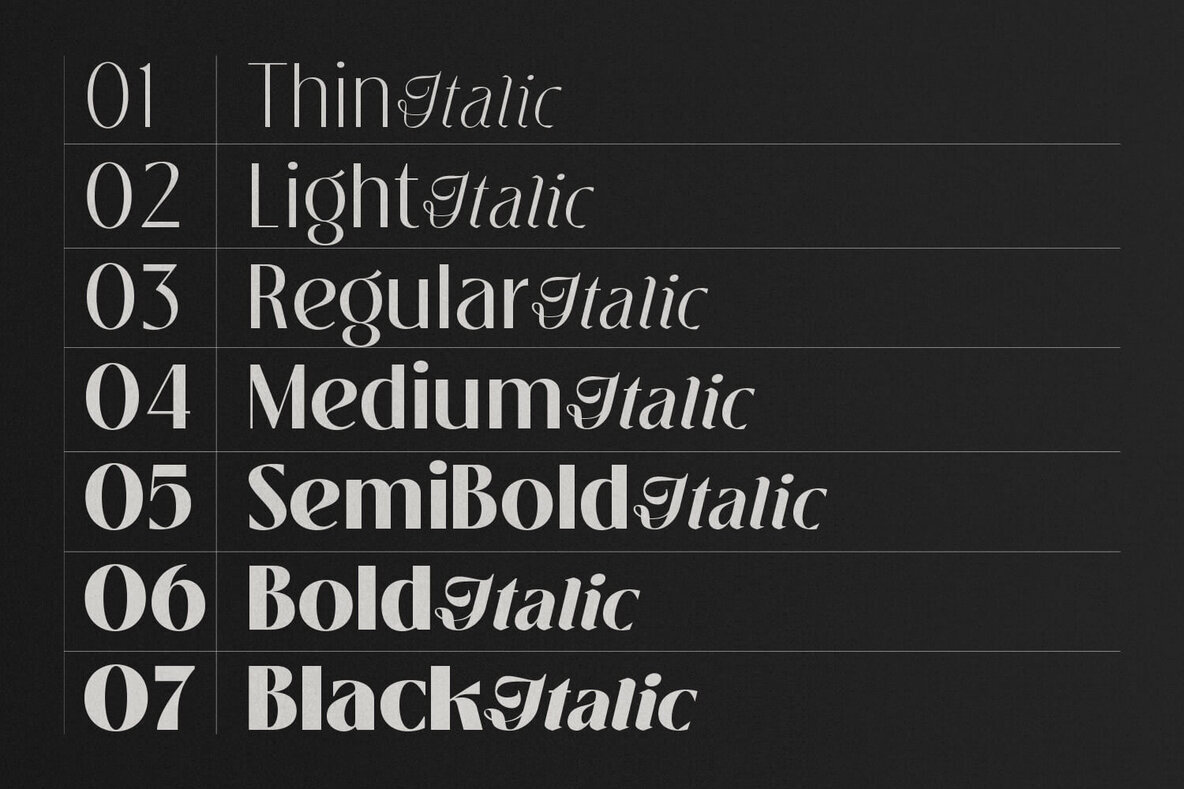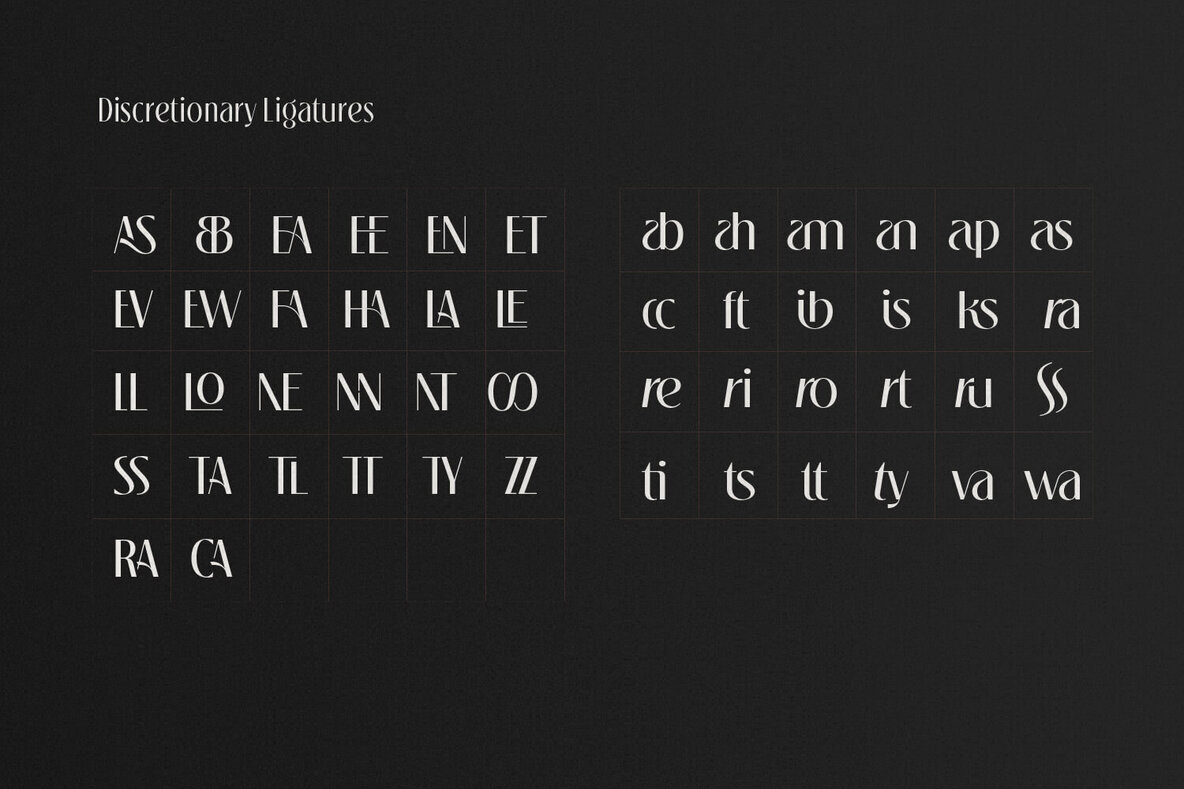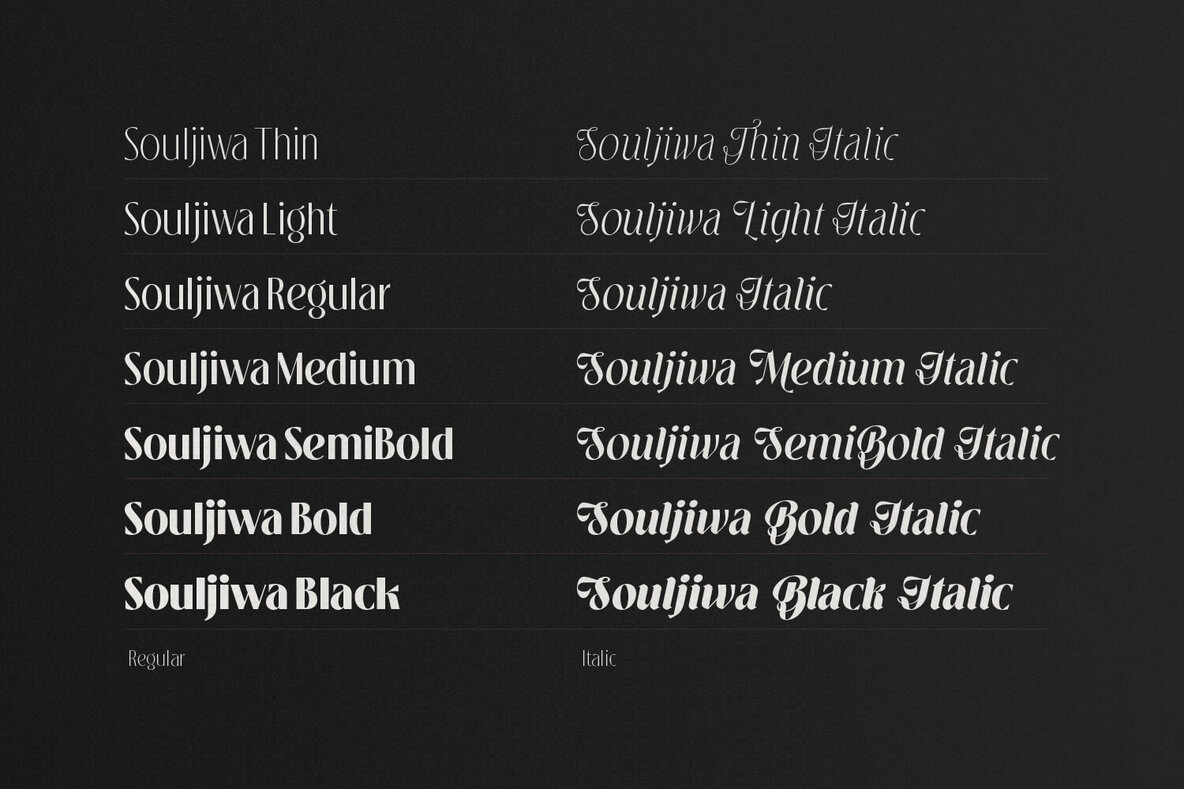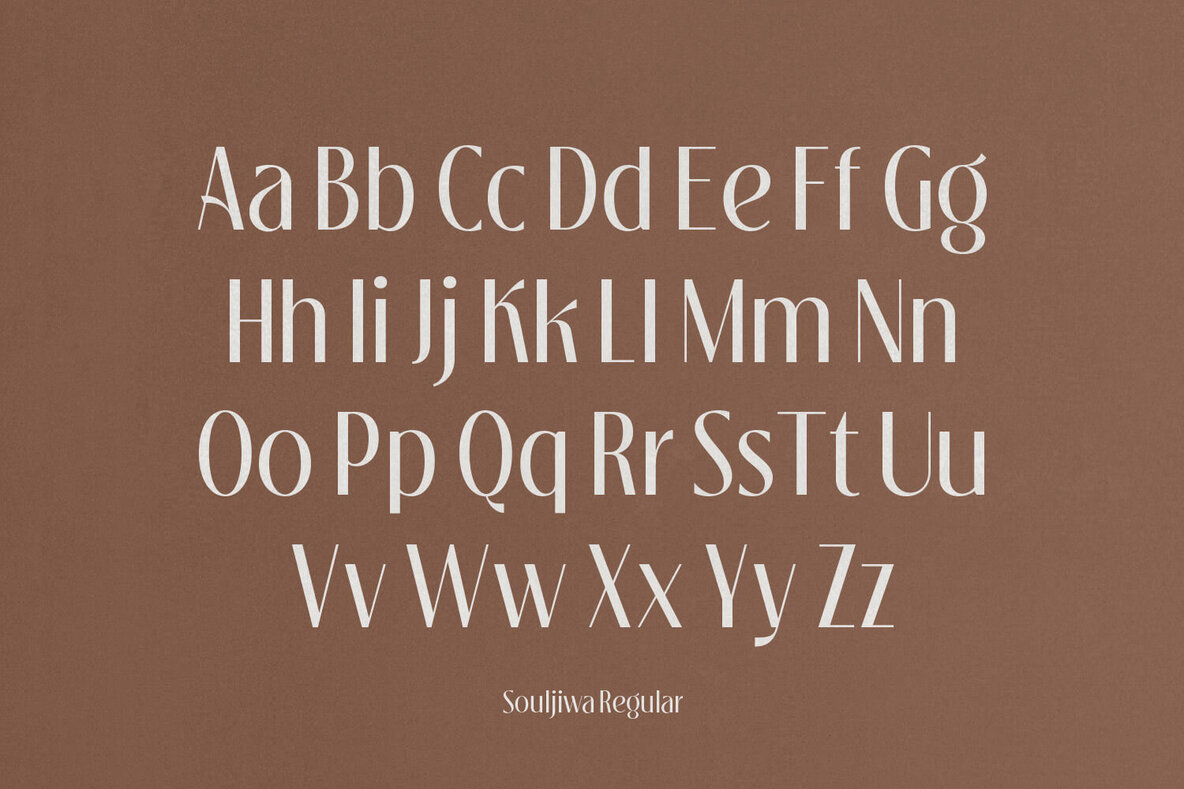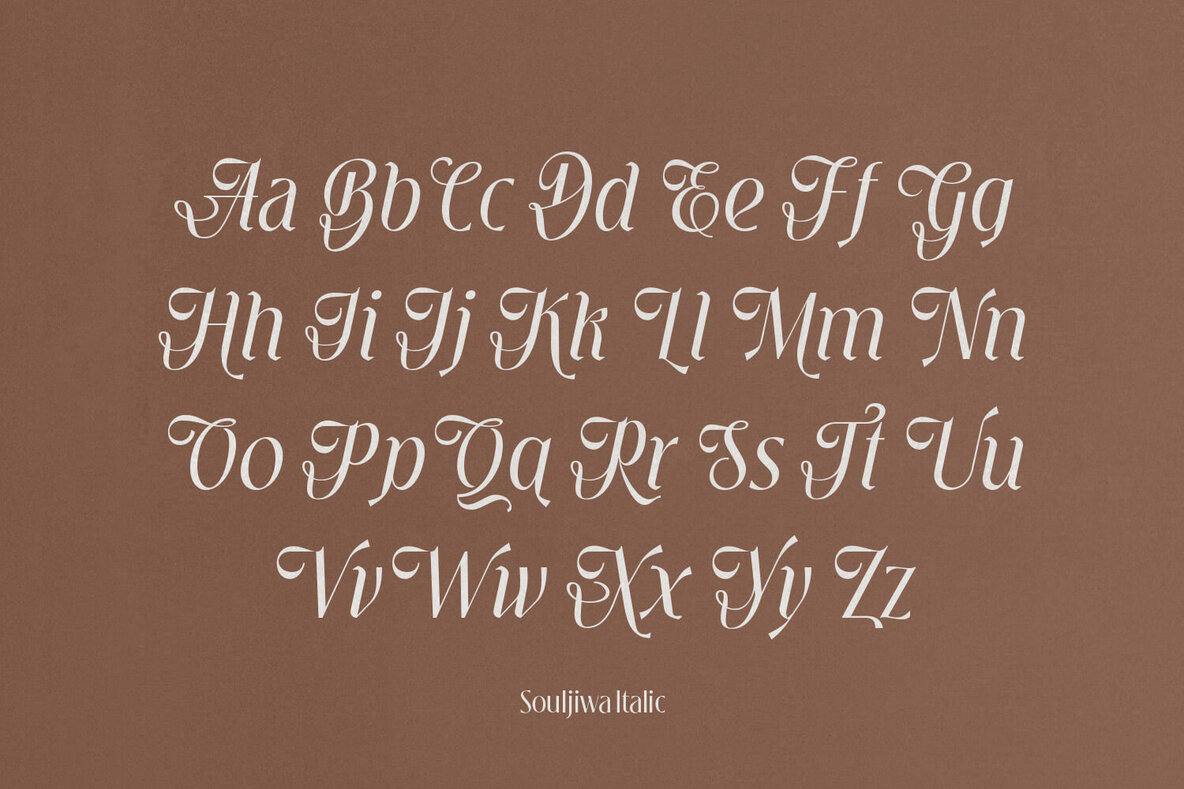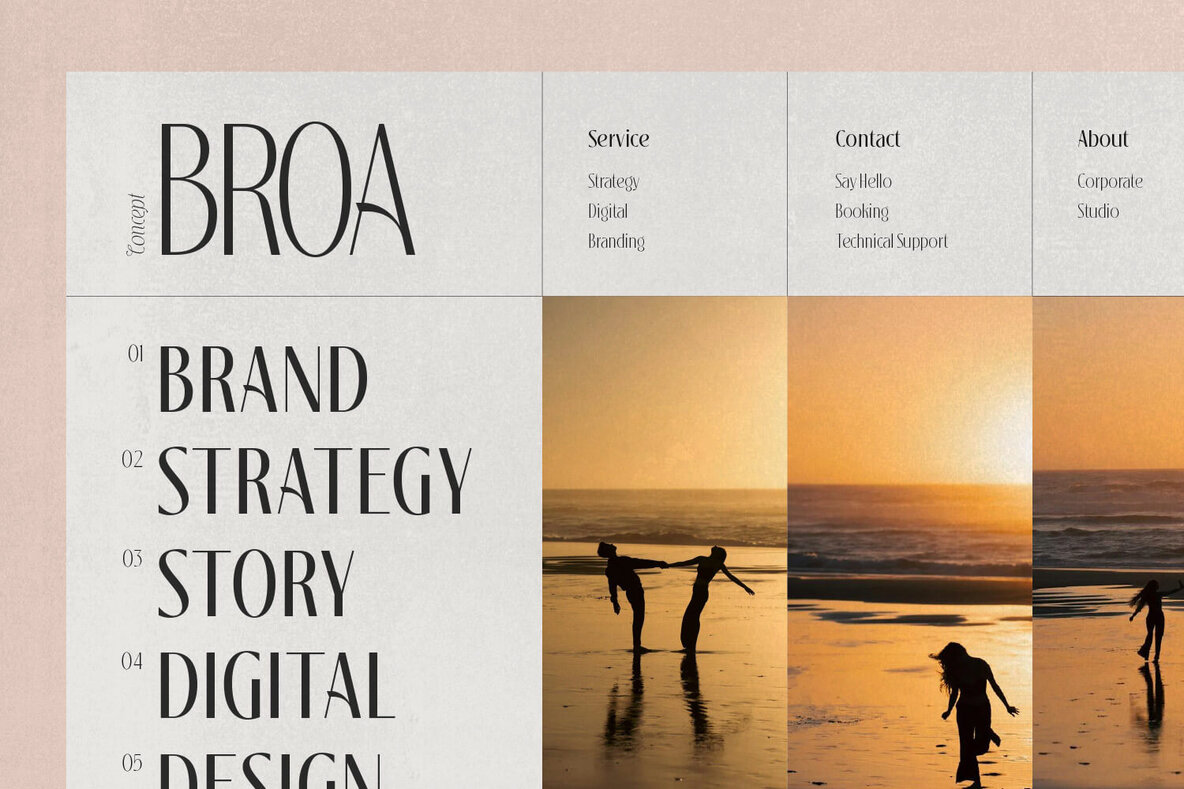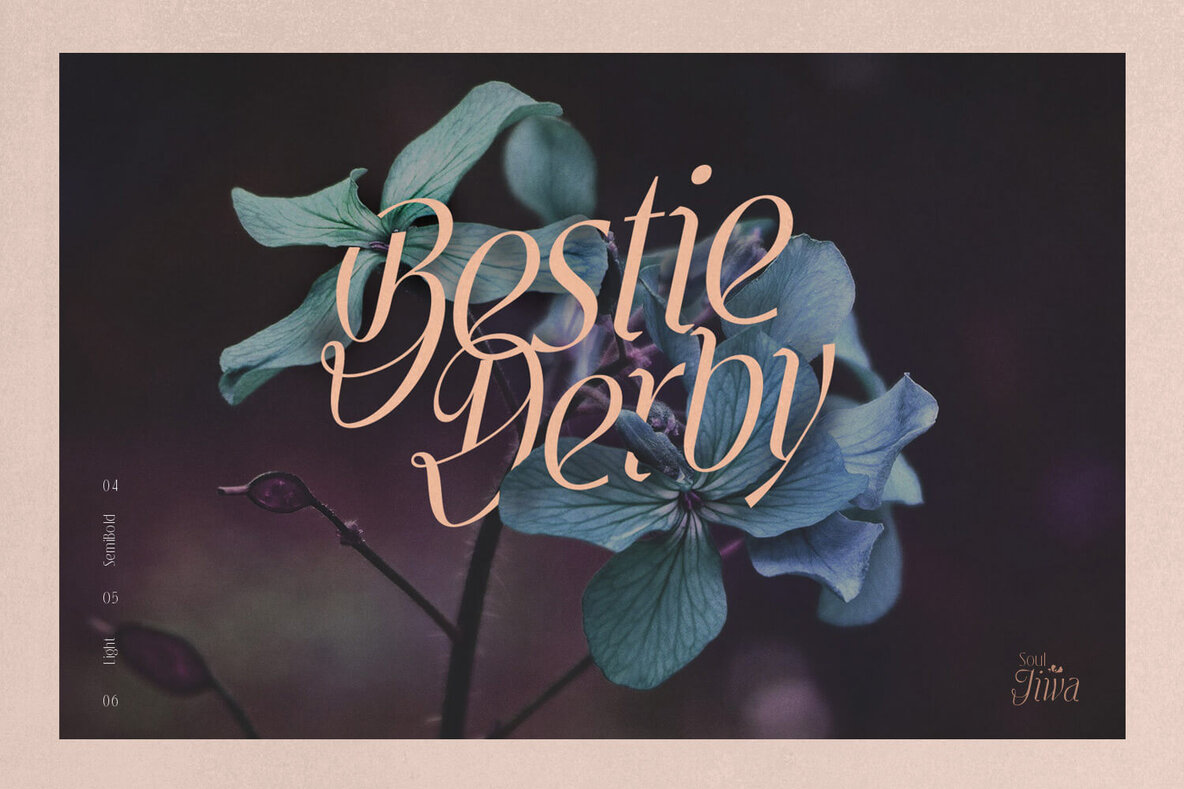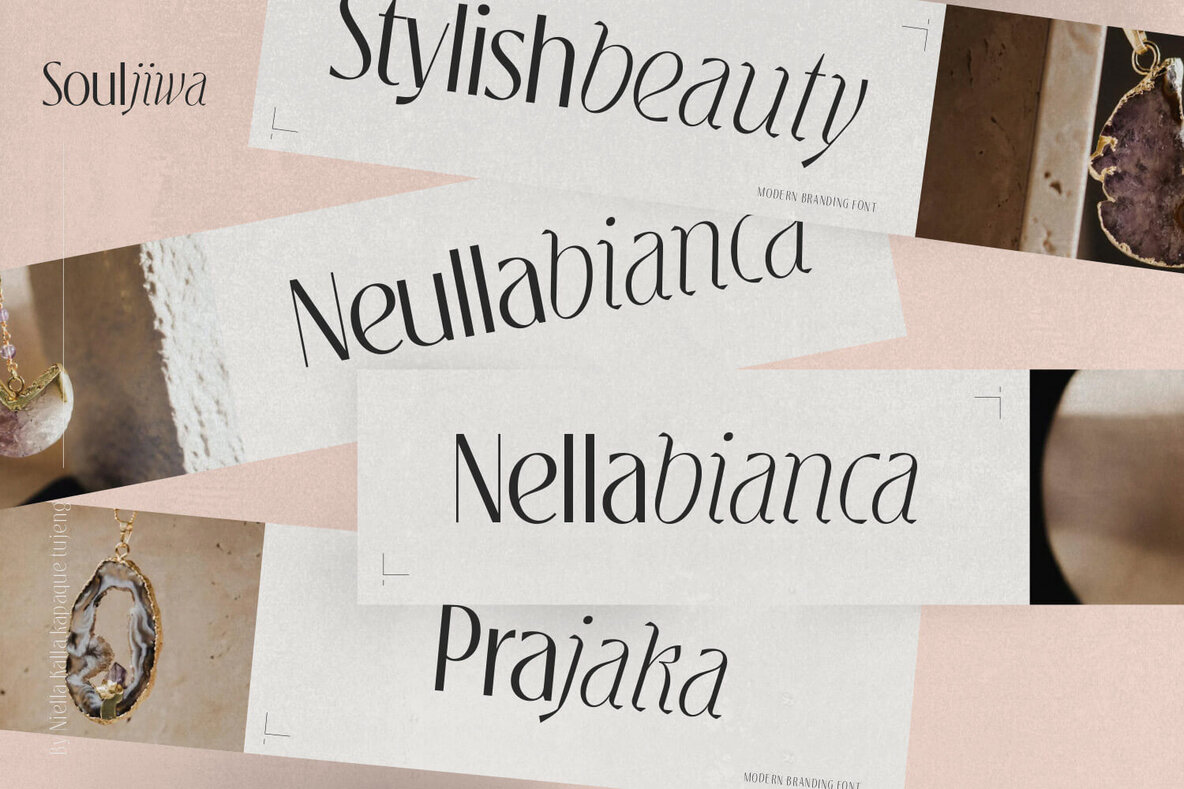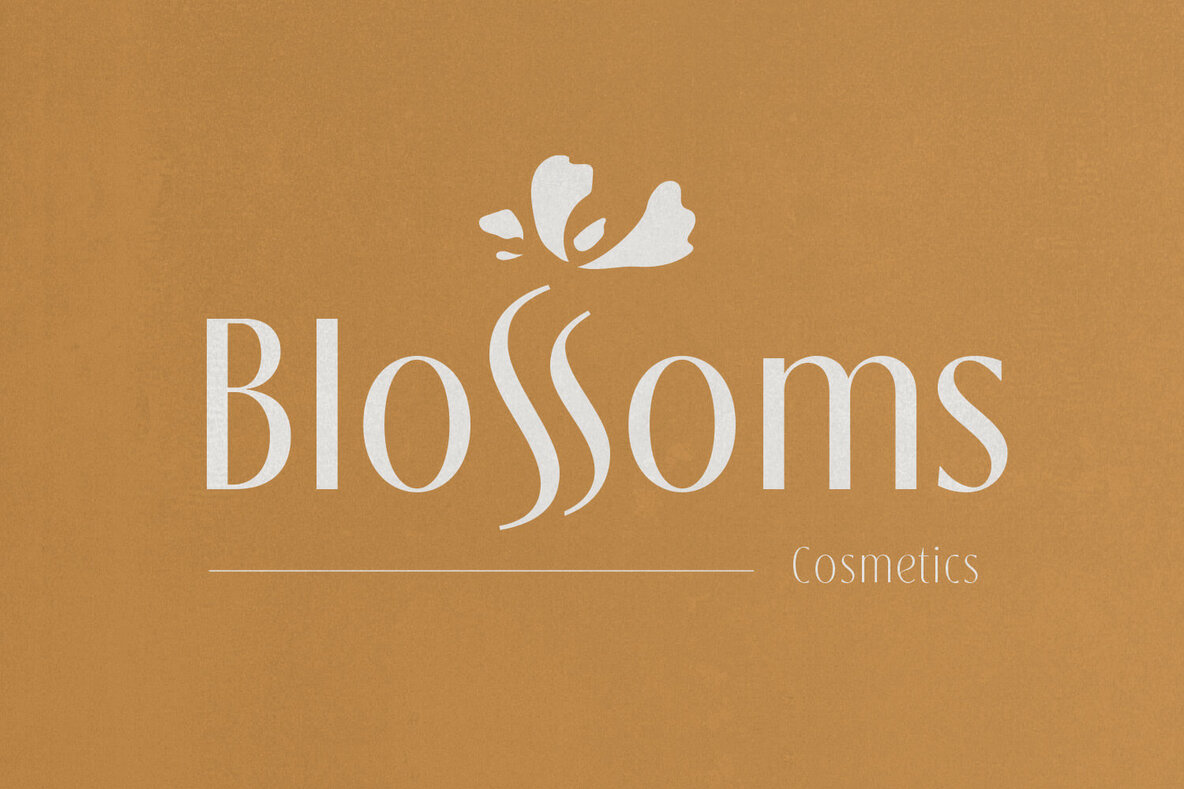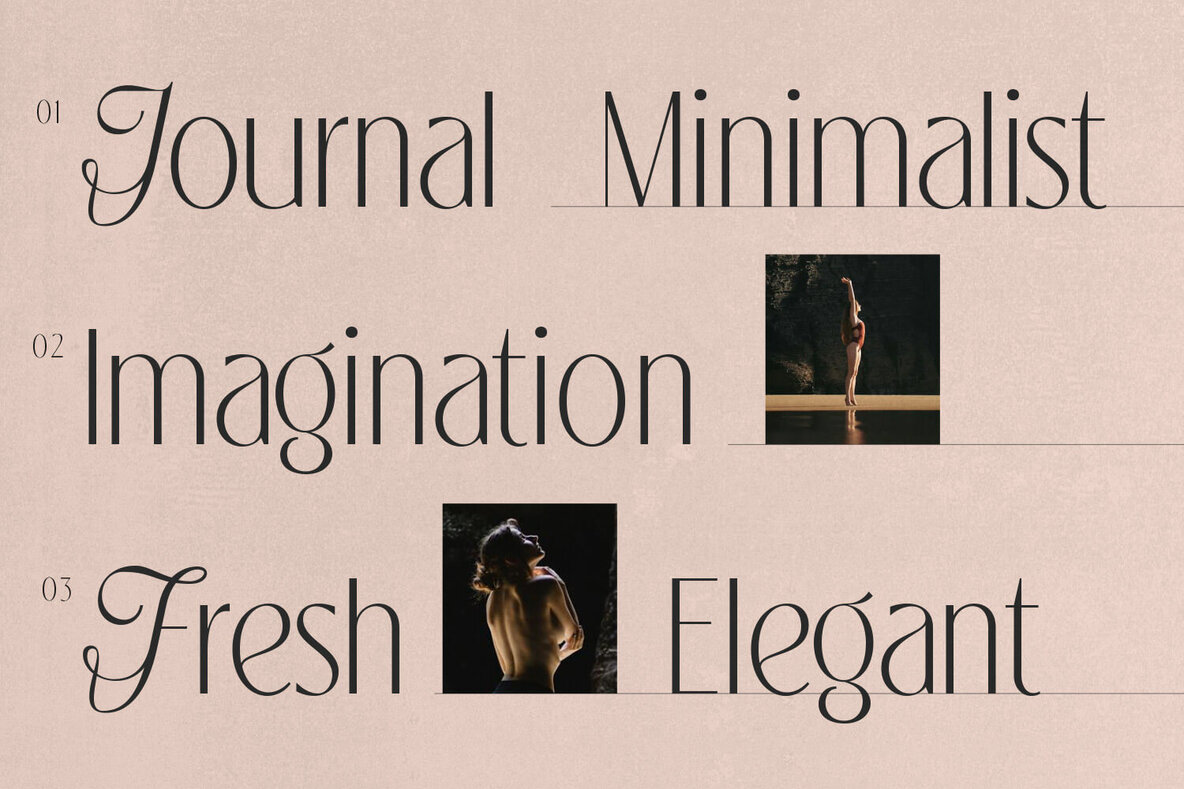
Souljiwa Font
Introducing Soujiwa, a modern and elegant typeface paired with Script italics. Offering seven distinctive weights from thin to black, Soujiwa caters to a variety of design needs. Whether you're working on fashion-related concepts, cosmetics branding, or high-end luxury designs, this versatile typeface ensures your projects exude sophistication and class.
Its refined style makes it ideal for classy branding and logo creation, where precision and elegance are paramount. Soujiwa seamlessly combines classic aesthetics with a contemporary touch, providing you with an unparalleled tool for creating striking and memorable visuals.